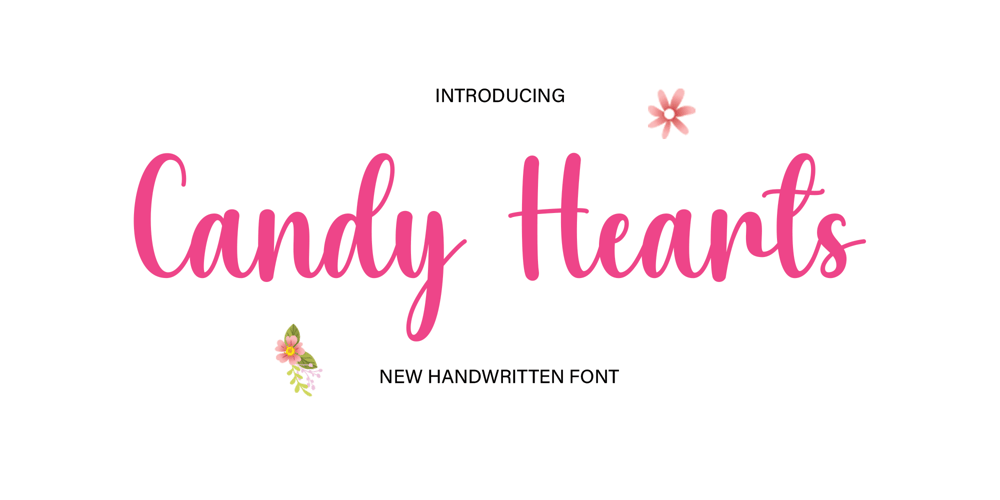
Candy Hearts
Candy Hearts font
Candy Hearts Font Family was designed by published by Dania Graphix Studio. Candy Hearts contains 1 styles and family package options. Candy Hearts a stylish and incredibly elegant handwritten font. It looks stunning on wedding invitations, thank you cards, quotes, greeting cards, logos, business cards, and every other design which needs a handwritten touch.This font is PUA encoded which means you can access all of the glyphs and alternates with ease!